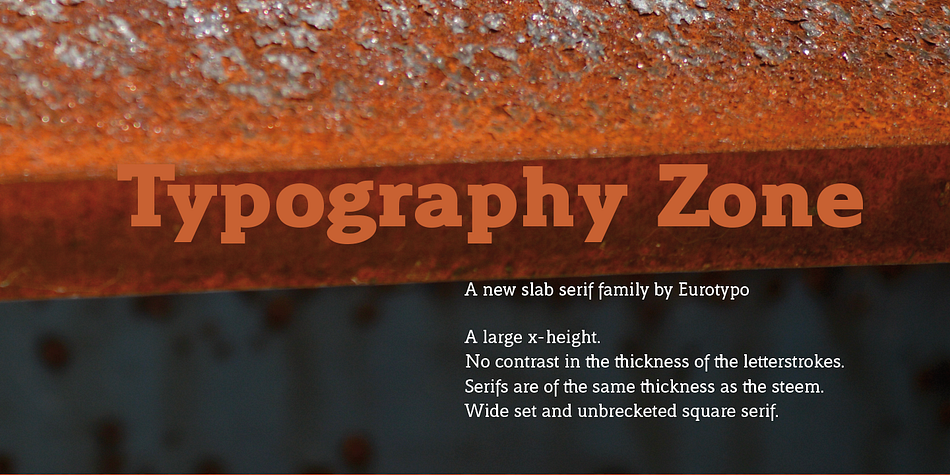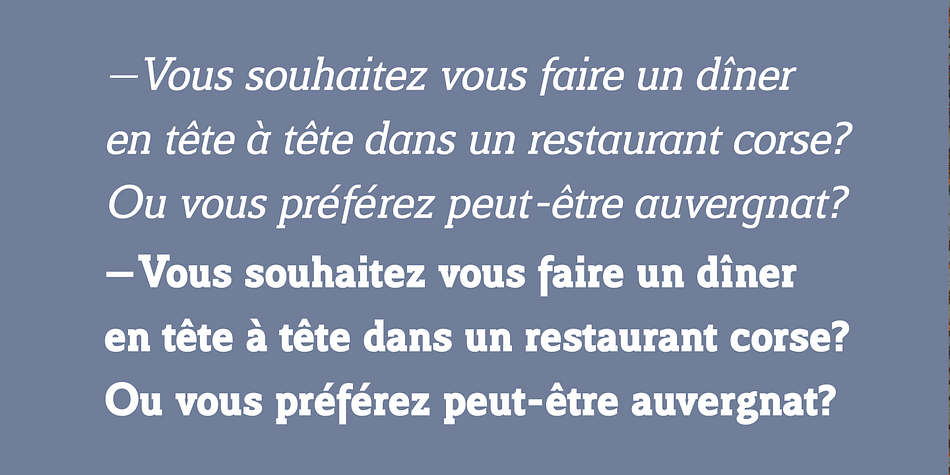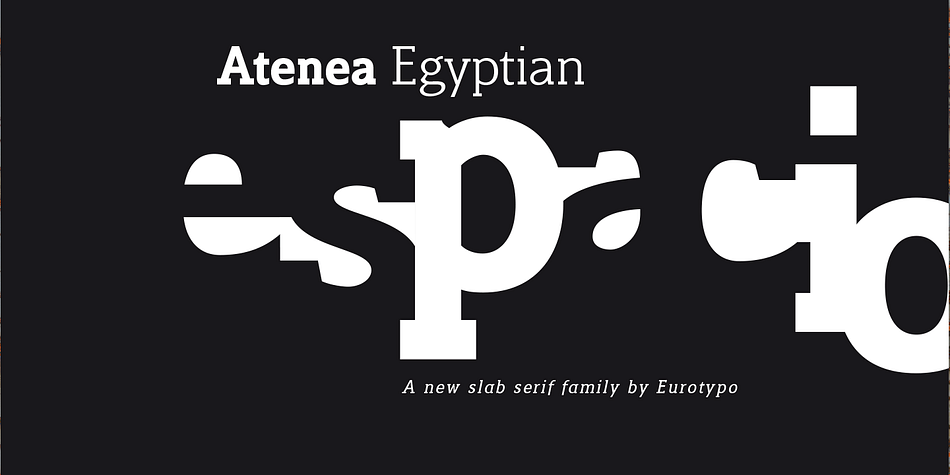
Designed by Olcar Alcaide, Atenea Egyptian is a slab serif font family. This typeface has nine styles and was published by Eurotypo.
Atenea Egyptian is a Slab Serif, the heavy mechanical look of this Slab Serif is a product of the industrial revolution but also inspired in humanistic typeface references. A contemporary style based on high contrast and modular proportion with stylized rhythms. Its serifs are unbracketed square with the same thickness as the steam.
Atenea Egyptian includes standards and discretional ligatures, small caps, fractions, old style and lining figures.